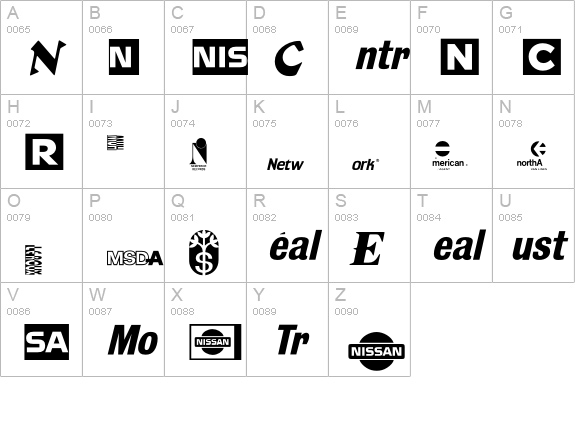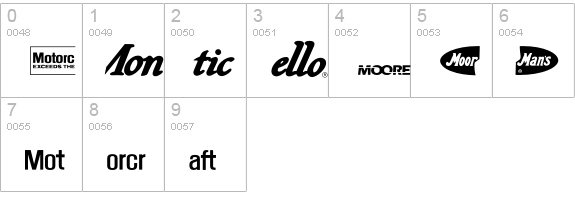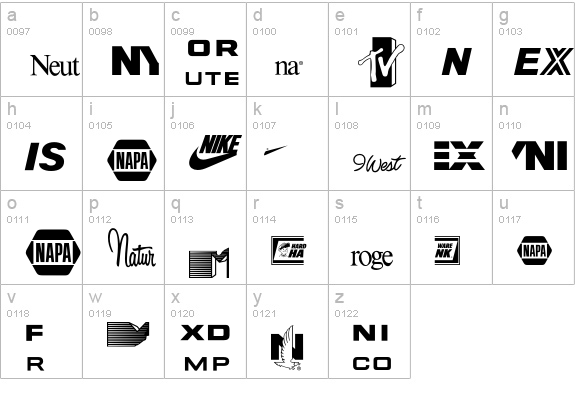
LogosCompanyP12 Font Details
LogosCompanyP12 font is a modern and versatile typeface that exudes sophistication and professionalism. With its clean lines and elegant design, this font is perfect for a wide range of design projects, from logos to branding materials. Its sleek and contemporary look will surely make your text stand out and capture attention. What makes LogosCompanyP12 font even more appealing is that it is available for free download at FontsMarket.com. This means that you can easily access this high-quality font without any cost, making it a valuable addition to your font collection. Whether you are a designer looking for a new typeface to elevate your projects or a business owner in need of a stylish font for your branding materials, LogosCompanyP12 font is the perfect choice. Download it today and unleash your creativity with this exceptional font.